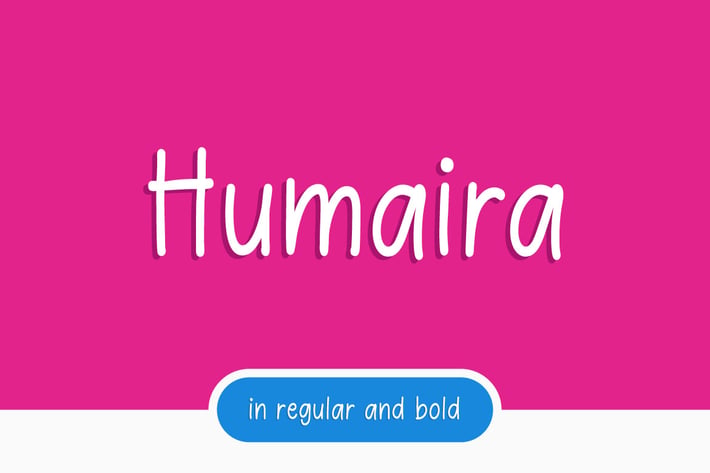
Humaira - Modern Sansserif Font
Hello! HUMAIRAH is a clean minimalist sans serif font
Humairah can be used in any works such as children book, flyer, book title, advertisement, social media content, logo and many more.